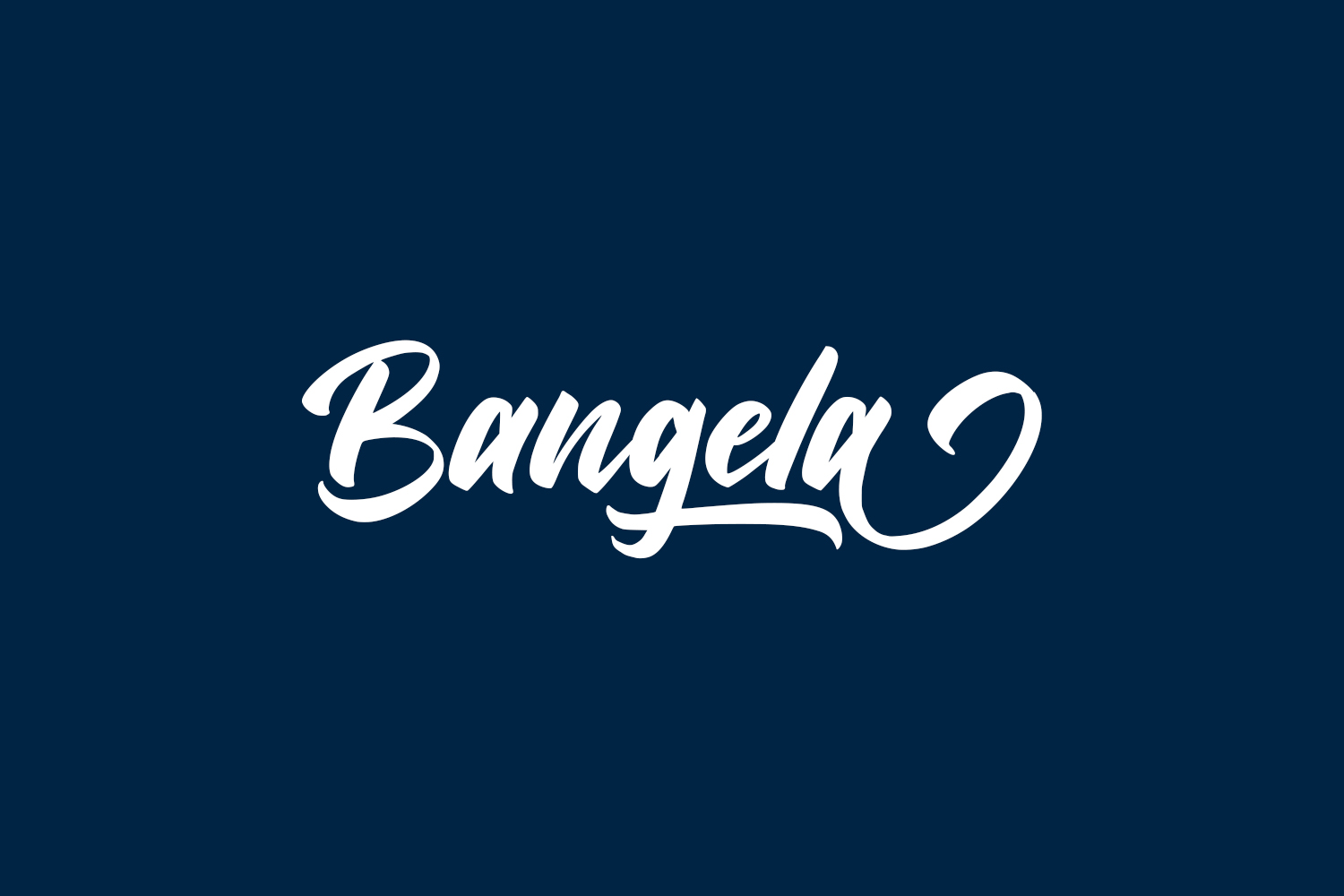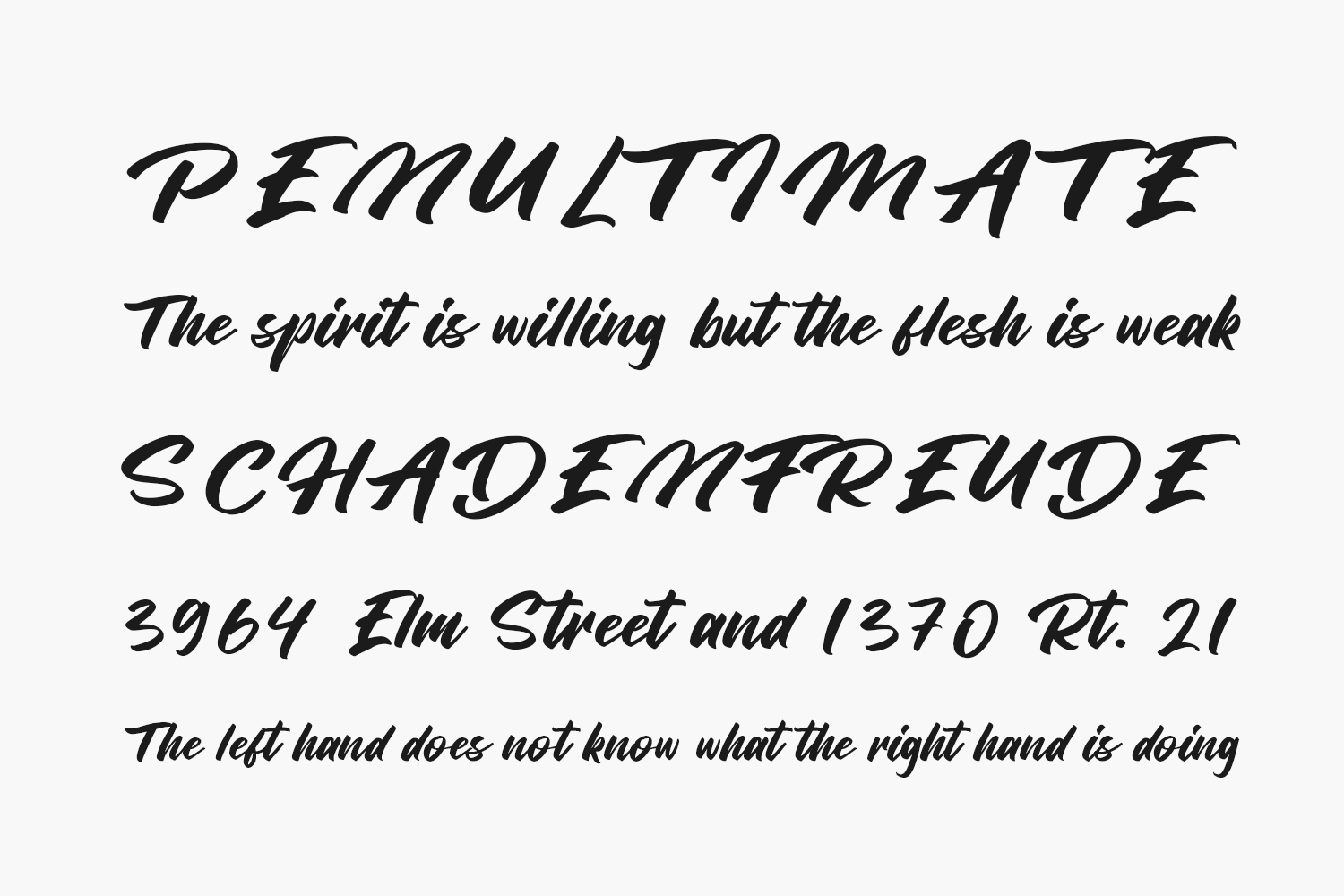
Bangela Free Font is a beautiful light handwritten font with a unique feel and a stunning impact. It will add a luxury spark to any design project that you wish to create. Bangela Free Font was designed by Vultype and is free for personal use only. Please purchase the full version for commercial use.